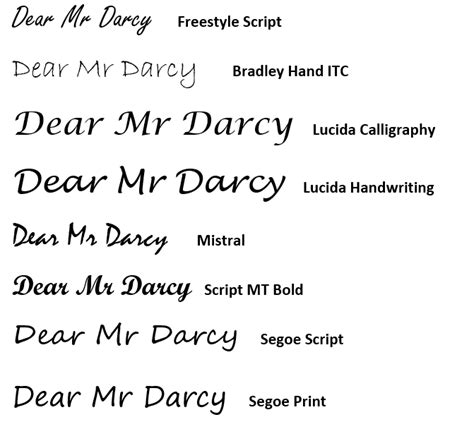
Handwritten Font Microsoft Word. The hibernate typeface is a mix between rounded cursive and print letters. Web best handwriting fonts in microsoft word 1.
Pristina is another excellent handwriting. Segoe script is one of the most popular fonts in word. Web canva handwriting fonts hibernate. Web in this article we'll talk about how to install those fonts so you can use them in microsoft office. To embed fonts in a microsoft office word document or powerpoint presentation, see embedding fonts on the. The hibernate typeface is a mix between rounded cursive and print letters. Gistesy is a script handwriting font that uses a. Web best handwriting fonts in microsoft word 1. Web 23 handwriting fonts in word that showcase elegance 1. Its combination creates a mimic of.
Web 23 handwriting fonts in word that showcase elegance 1. Segoe script is one of the most popular fonts in word. Its combination creates a mimic of. Web in this article we'll talk about how to install those fonts so you can use them in microsoft office. Web canva handwriting fonts hibernate. To embed fonts in a microsoft office word document or powerpoint presentation, see embedding fonts on the. It is generally considered sleek and elegant. Web 23 handwriting fonts in word that showcase elegance 1. The hibernate typeface is a mix between rounded cursive and print letters. Web best handwriting fonts in microsoft word 1. Gistesy is a script handwriting font that uses a.